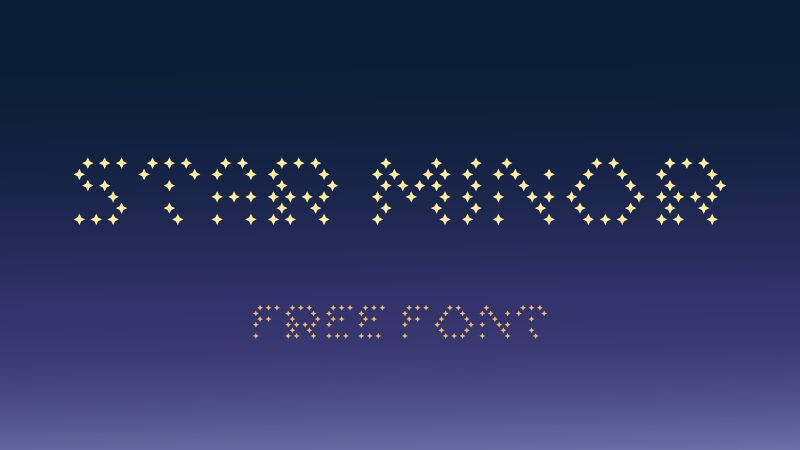
Dive into the cosmic allure of Star Minor, a display font crafted by the visionary GGBotNet. With each character born from a constellation of stars, this decorative typeface expands creative horizons, offering an expanded width that commands attention. Perfect for projects that aim to dazzle and inspire, Star Minor is not just a font-it's a journey through typography's universe.
Embrace its stellar charm for branding, poster design, or any endeavor that calls for a touch of celestial wonder.